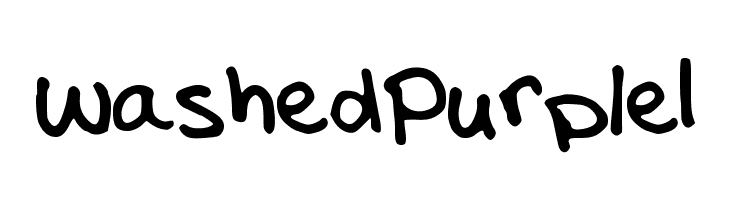
( Lara Russell )
A playful, handwritten font with bold, rounded letters and a casual style.
( Leeho - Lee Hodges - www.leeho.co.uk )
A playful, handwritten font with a casual and friendly style.
( Lionel Pailloncy - about.me/lionel.pailloncy )
A playful handwritten font with rounded, casual letterforms.
( Lizzy - washedpurple.com )
A playful, bold handwritten font with a casual and dynamic style.
( Manuel Lage - napojozare.jimdo.com )
A playful, handwritten font with thin, irregular strokes and a casual style.
( Marco Aguayo )
A playful, handwritten font with rounded edges and a casual style.
( Marco Aguayo )
A playful, rounded font with a casual and friendly style.
( Marco Ballarè - www.marcoballare.com )
A playful handwritten font with an informal and casual style.
( Matt Bruinooge )
A playful, handwritten font with a casual and whimsical style.
( Meaghan Wong - 4am.firewish.net )
A casual, handwritten font with fluid strokes and a lively feel.